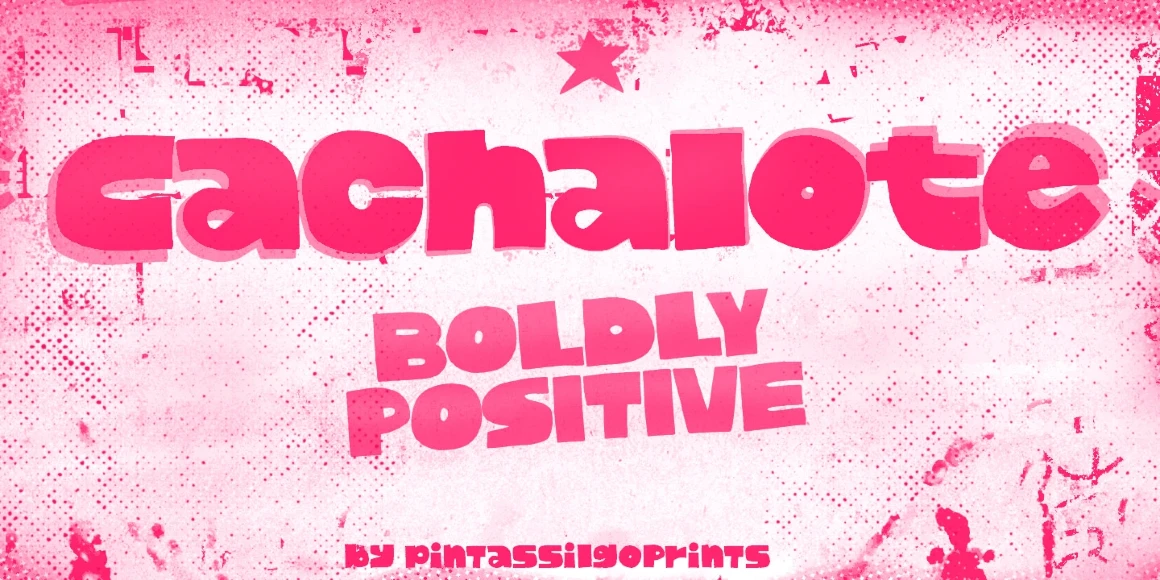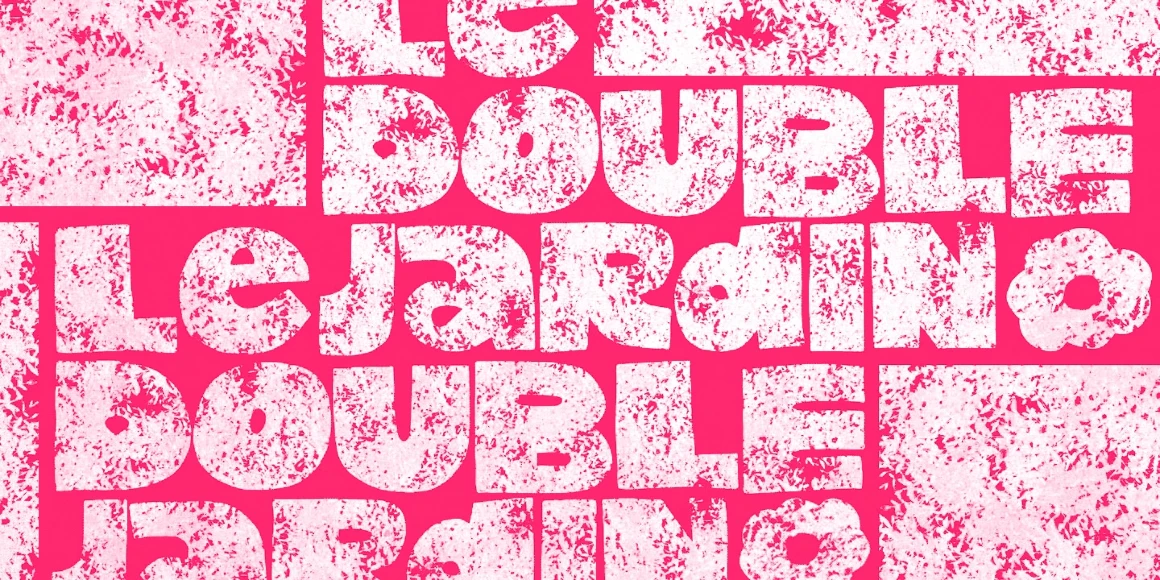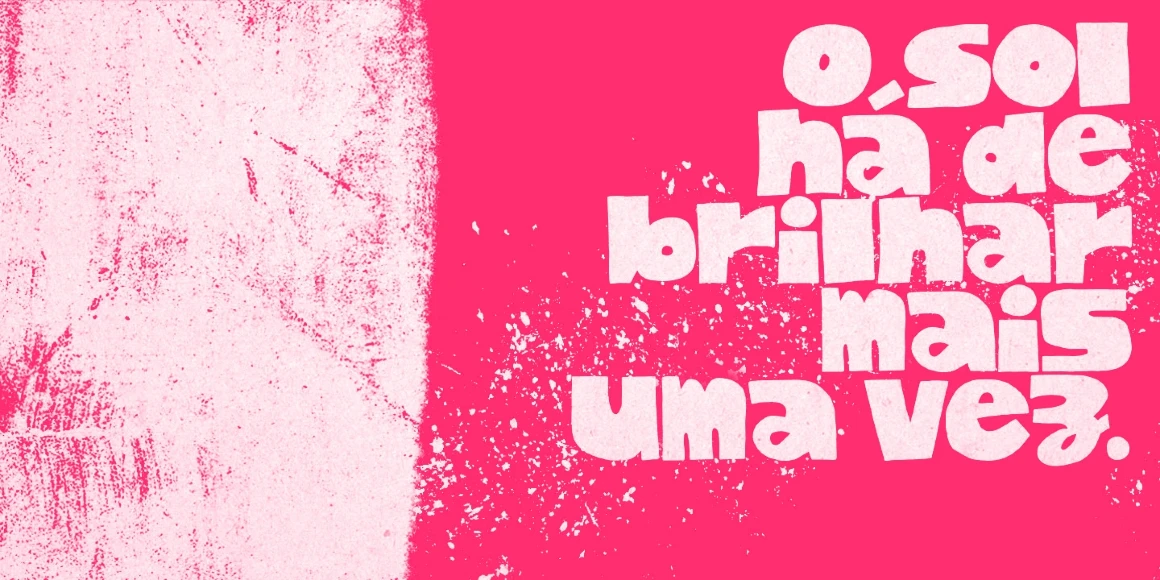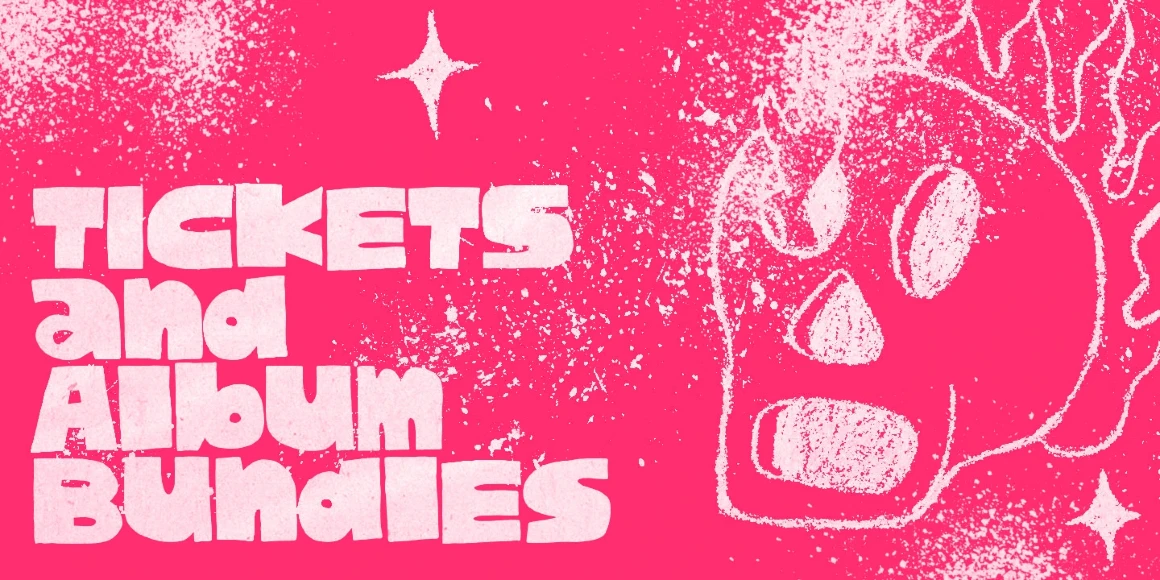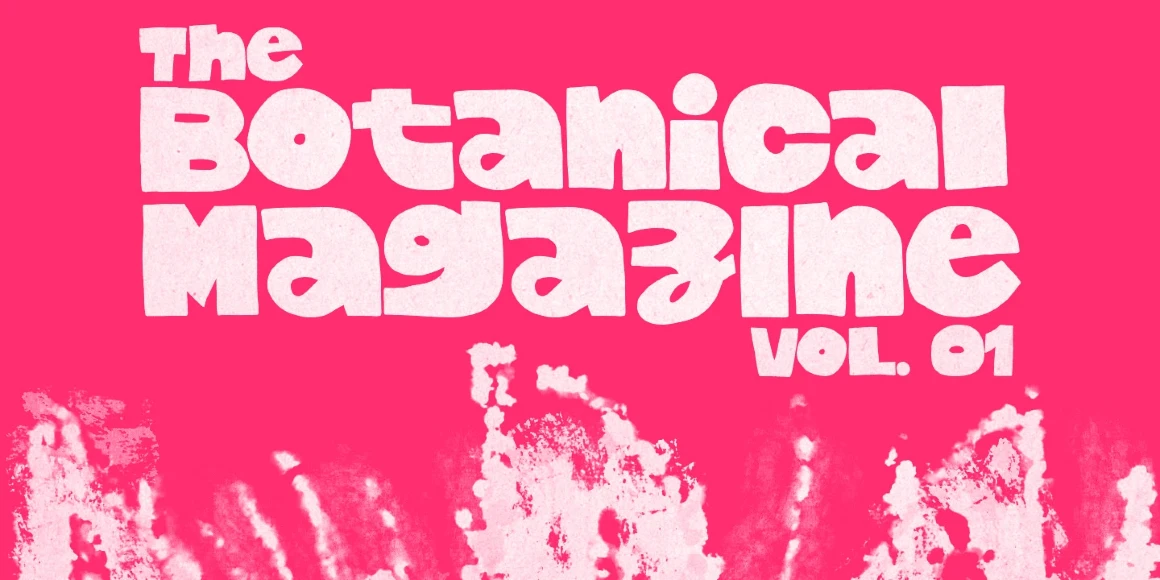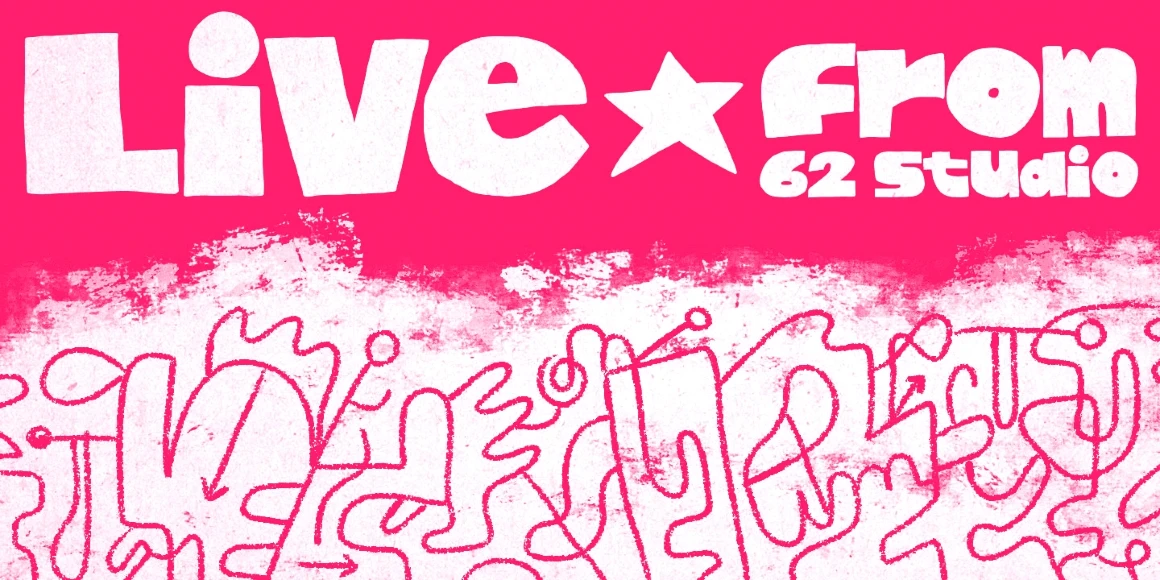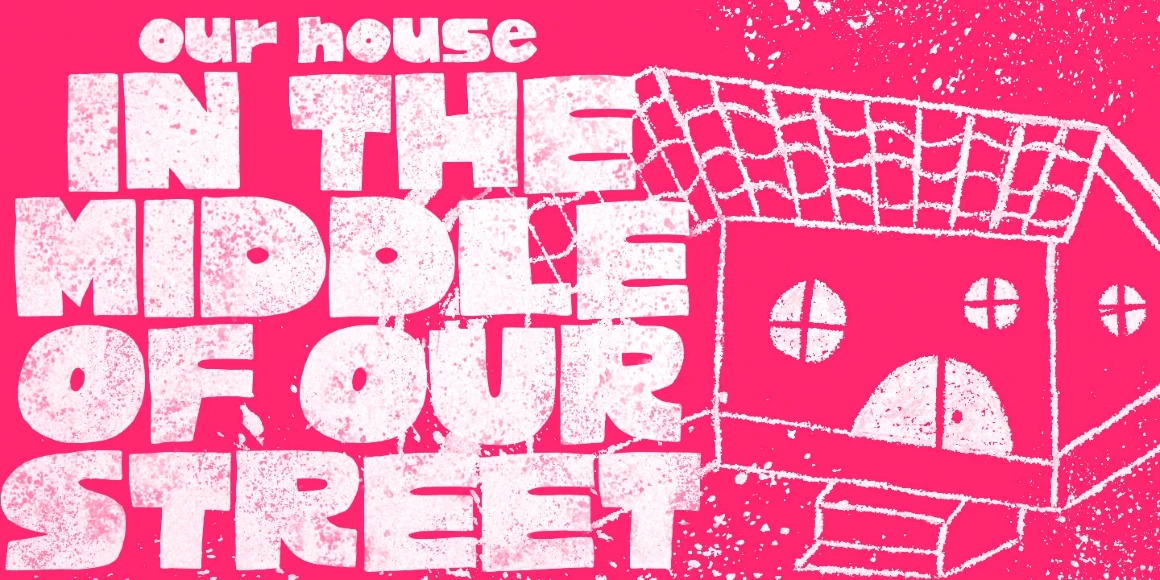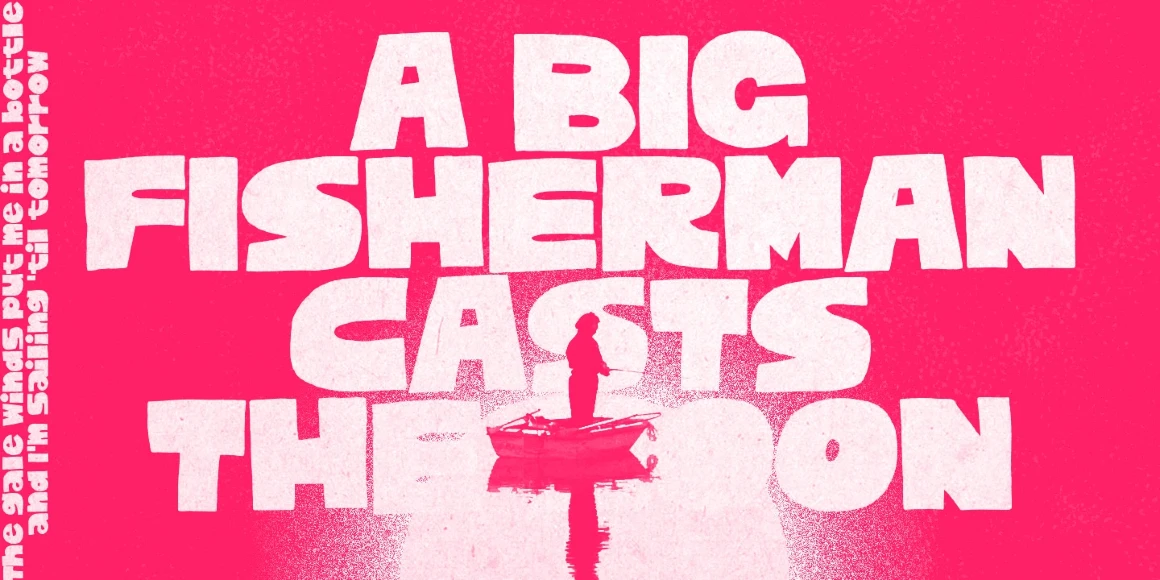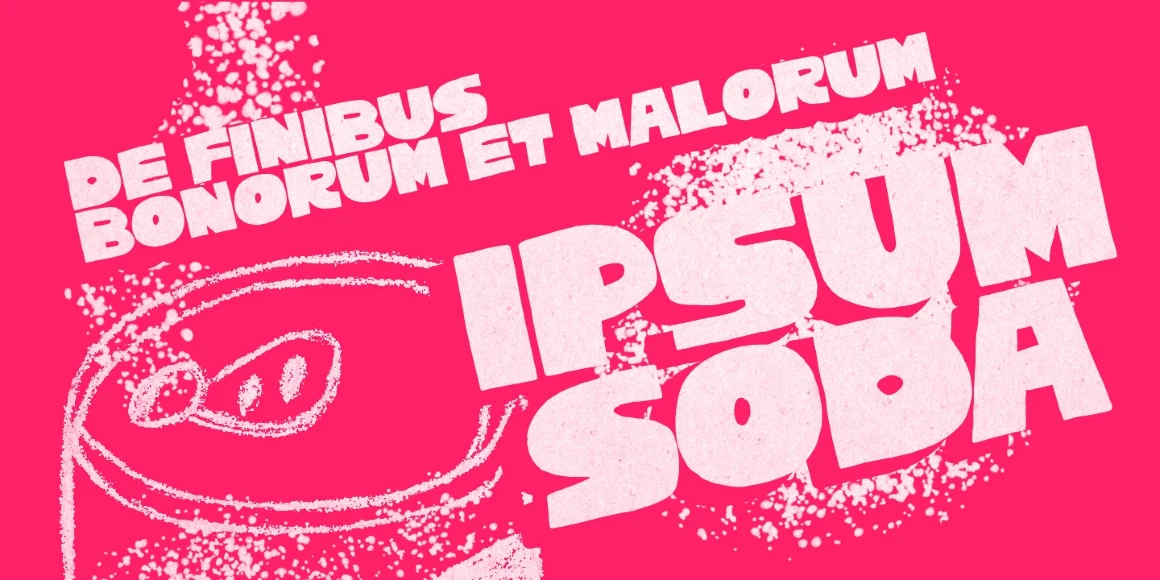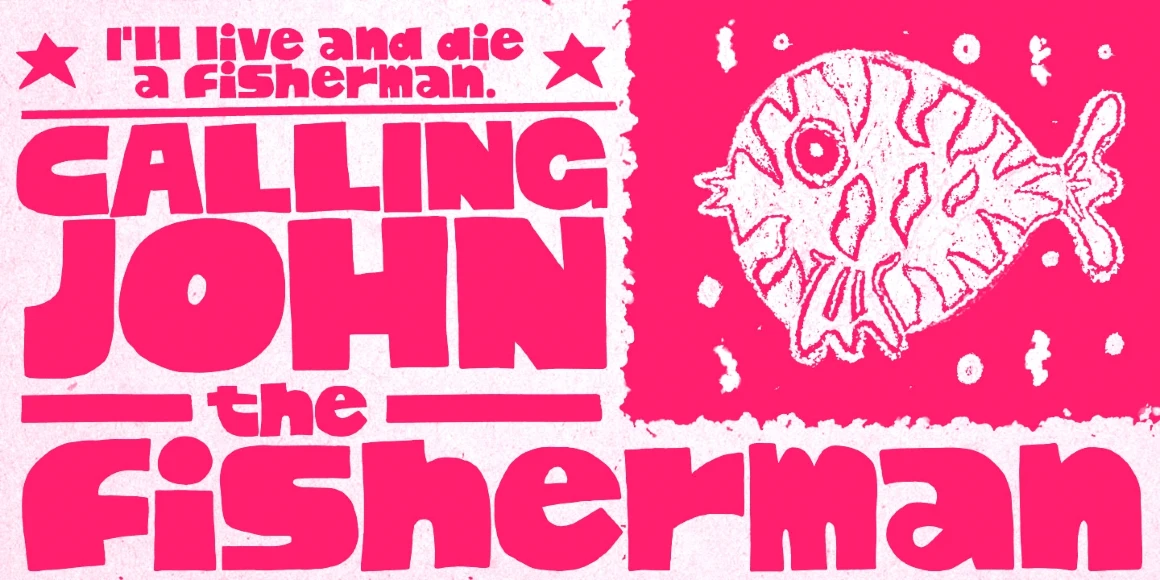
Cachalote
Cachalote is a positively bold display face drawn by subtracting negative space. Its exaggerated proportions and tight spacing give it an almost animated feel, evoking a whimsical, cartoonish tone. Ideal for children’s titles, toy packaging, retro posters, or playful branding where personality and visual impact are key.